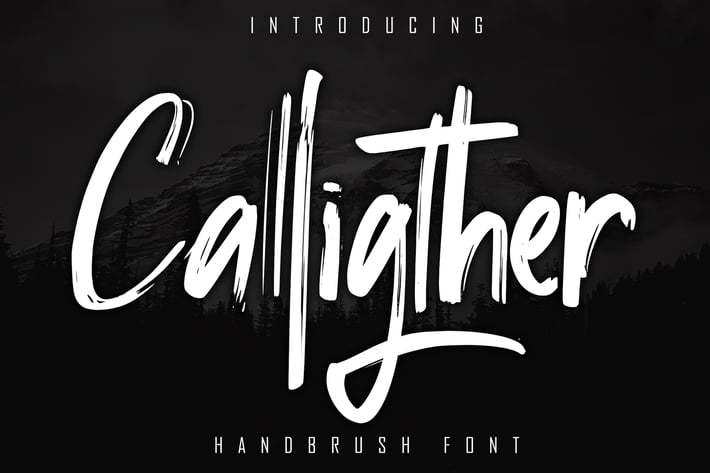
Calligther Handbrush Font
Calligther was inspired by the Handwritten of natural brushes. Written in quick motion using a brush pen, it's a bit dry and looks realistic. It is suitable for commercial needs or magazine fashion design, offer logos, product packaging, headlines, posters, film,merchandise, social media & other greeting cards.
+ Ligature\
+ Stylistic Alternate for lowercase\
+ Basic Latin Language Support (AÀÁÂÃÄÅCÇDÐEÈÉÊËIÌÍÎÏÑOØÒÓÔÕÖUÙÜÚÛWYÝŸÆß )